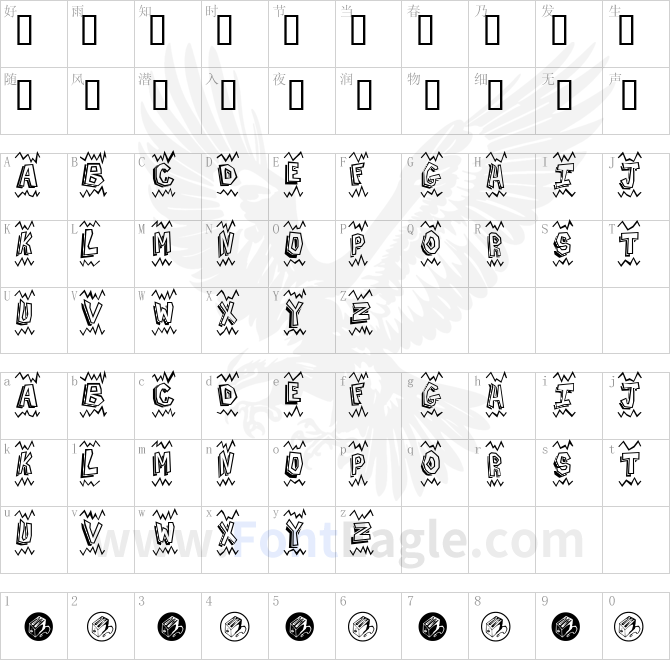
Batman Beat the hell Outta Me Regular.ttf Font Image
Batman Beat the hell Outta Me Regular.ttf Base Font Information
- Font name:Batman Beat the hell Outta Me
- Font Subfamily ID:Altsys Fontographer 4.0 Batman Beat the hell Outta Me
- Font Full Name:Batman Beat the hell Outta Me
- Font Version:Altsys Fontographer 4.0 3/24/97
- Postscript:BatmanBeatthehellOuttaMe
Batman Beat the hell Outta Me Regular.ttf Characters Sample